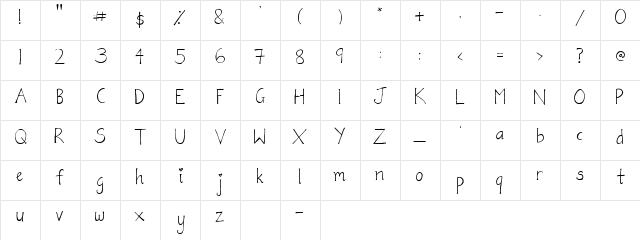
Nibble Diary Regular
Design Context for Nibble Diary Typeface
Nibble Diary offers clean, dependable letterforms without strong stylistic allegiance, making it a practical choice for designers who need flexibility.
Pro Tip: Use Nibble Diary in both headline and body roles to test its range before committing to a single application.